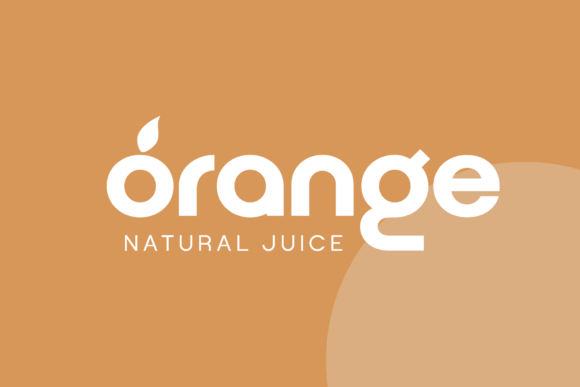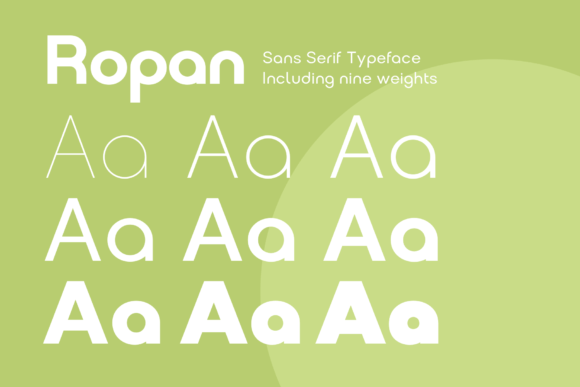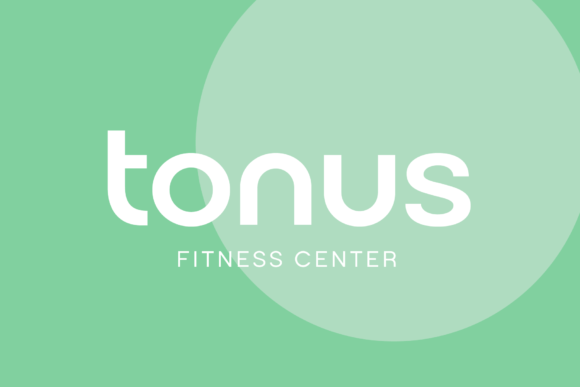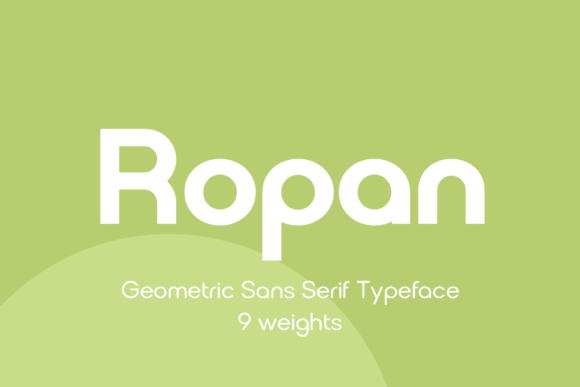
Introduction to Ropan Font
Ropan this is a modern geometric sans-serif font that includes nine weights from thin to black.
👤 Author Pasha Larin
This multi-purpose font captures a huge range for the design and creation of your project Ropan will perfectly cope with a variety of tasks and he will always look stylish and modern.
Ropan Font offers exceptional quality and versatility, making it a valuable addition to your design toolkit. Whether you’re creating for personal projects or commercial use, Ropan Font delivers professional results.